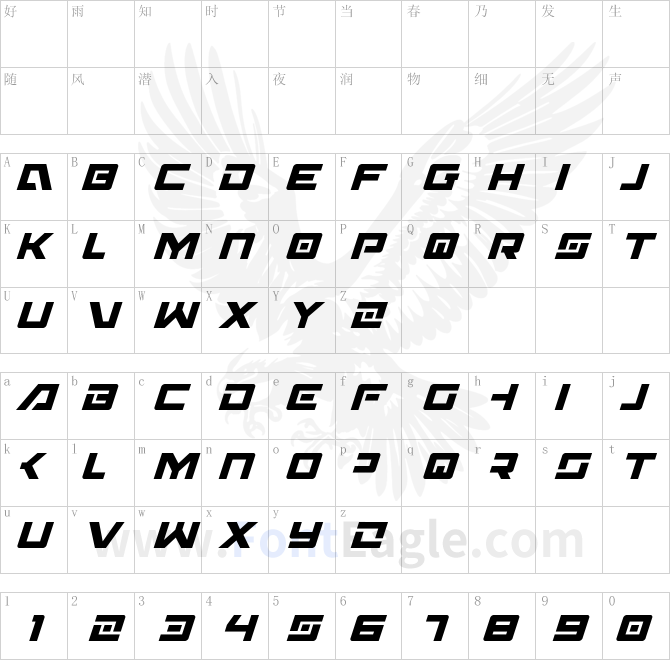
Wildcard-Condensed-Italic is a great font, widely used in graphic design, single-page menu design, poster design and other fields, and is deeply loved by designers.Wildcard-Condensed-Italic download.